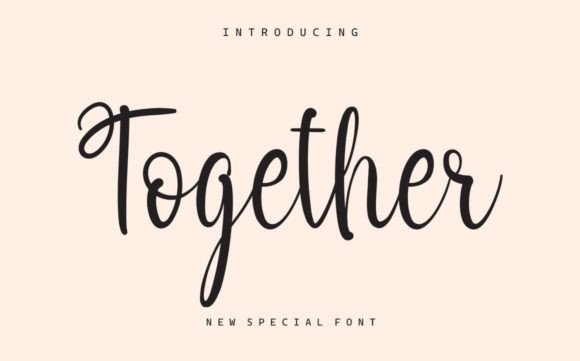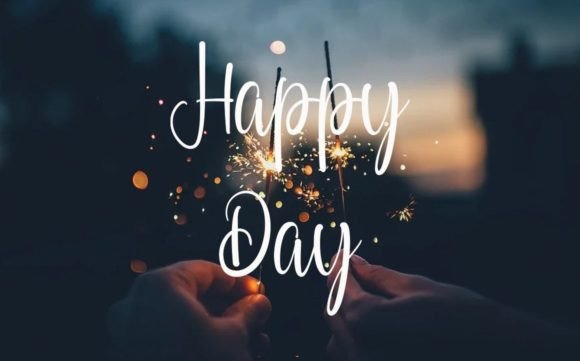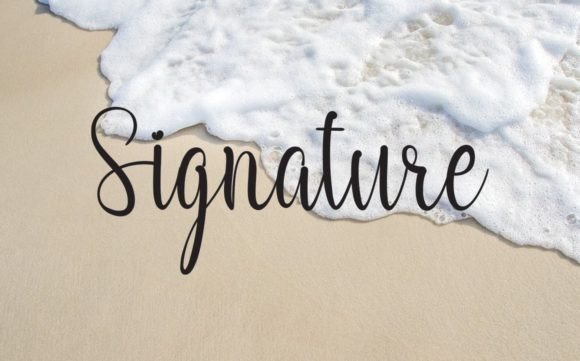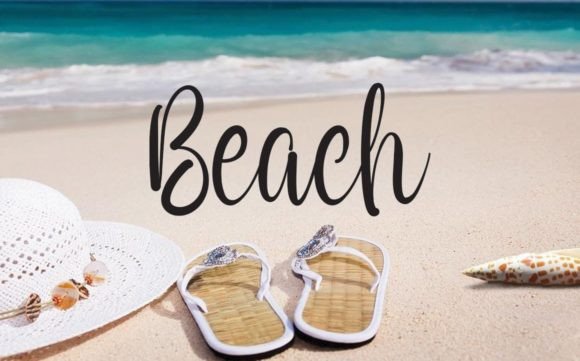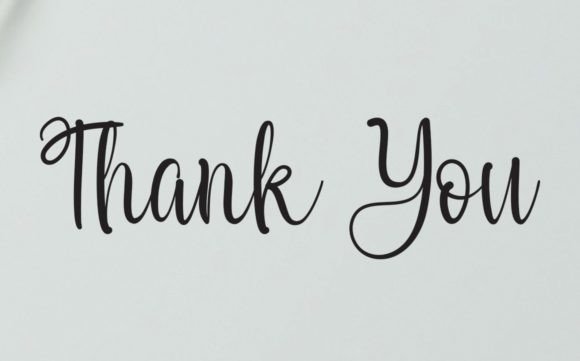
Together Font
About Together Font
“Together” is an enchanting handwritten font designed to add a touch of magic to your designs. Its versatility allows it to shine across a broad spectrum of applications, making it suitable for everything from greeting cards to headlines. With its romantic and captivating essence, “Together” is guaranteed to infuse a sense of connection and warmth into your next project.
The enchantment of “Together” is evident in its carefully crafted handwritten style. This imparts a personal and whimsical touch to your text, creating a charming and inviting atmosphere. The flowing characters and distinctive charm make it an ideal choice for various design contexts where a romantic and captivating feel is desired.
The font’s versatility becomes apparent as it seamlessly adapts to different applications. Whether you’re crafting heartfelt greeting cards or designing attention-grabbing headlines, “Together” enhances your text with a romantic allure, resulting in a visually appealing and emotionally engaging outcome.
“Together” is well-suited for projects that aim to evoke emotions and create a connection with the audience. The font’s charm introduces a delightful element to your designs, making them memorable and inviting.
In essence, “Together” is more than just a font; it’s a design asset that injects enchantment and romance into your creative projects. Embrace its handwritten allure and witness how it transforms your greeting cards, headlines, and more into artistic expressions that resonate with a romantic and captivating feel. Allow “Together” to be the magical element that enhances your next design endeavor, leaving a lasting impression on those who encounter it.